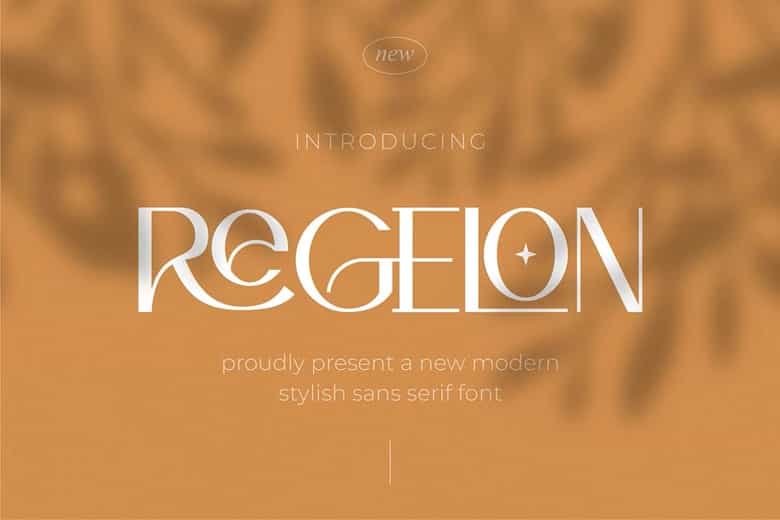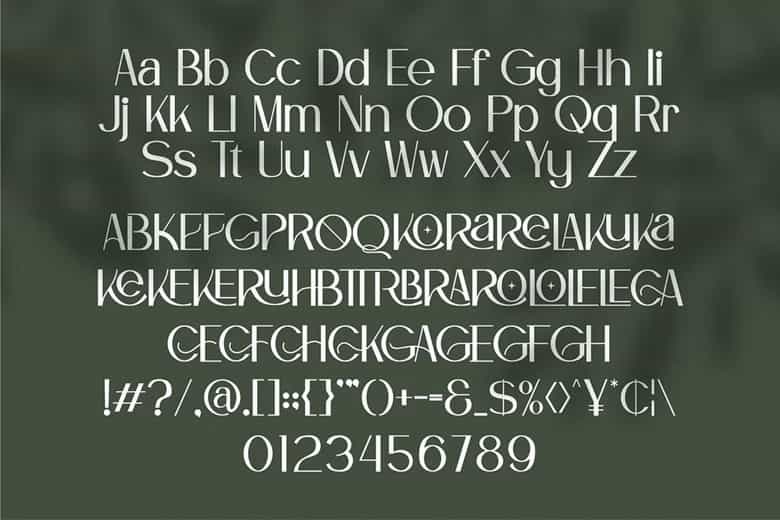
Regelon proudly present a new modern stylish sans serif typeface. The wood theme is seen as having a unique character. It is the perfect fit to be combined with invitation card designs, company logos, movie titles, movie names, business cards, book titles, brand names and other various designs.